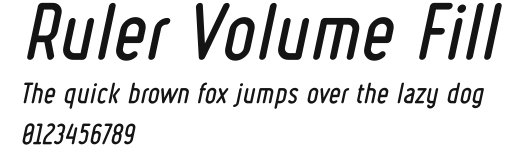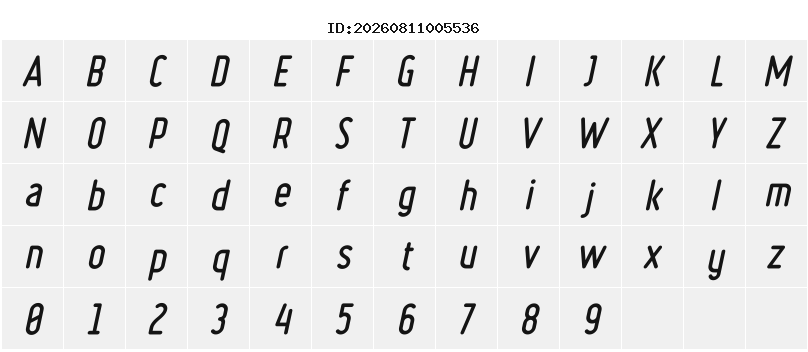
• Font Name: Ruler Volume Fill
• Designer: Levi Szekeres
Ruler Volume Fill.ttf is a modern, elegant sans-serif font designed for ultimate readability and visual harmony. Perfect for branding, headlines, web design, and print materials.